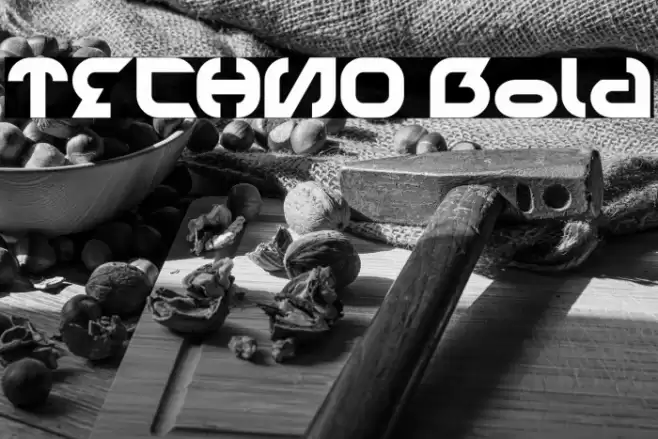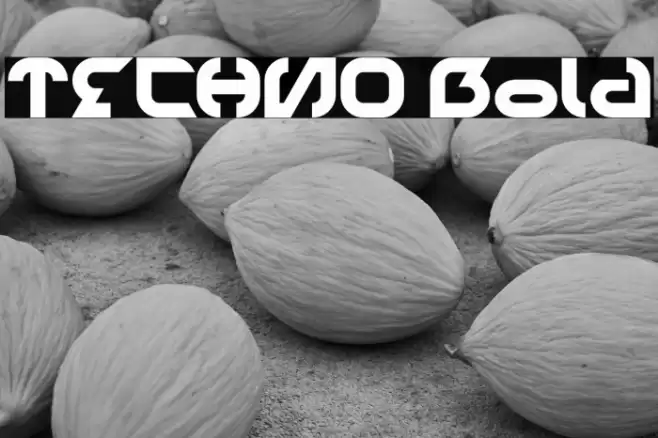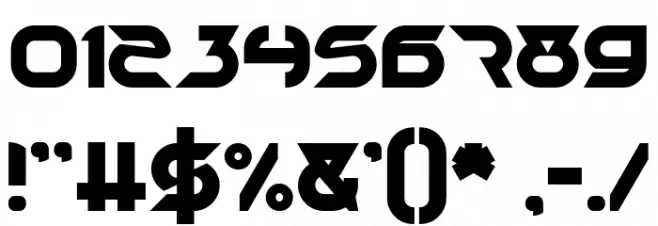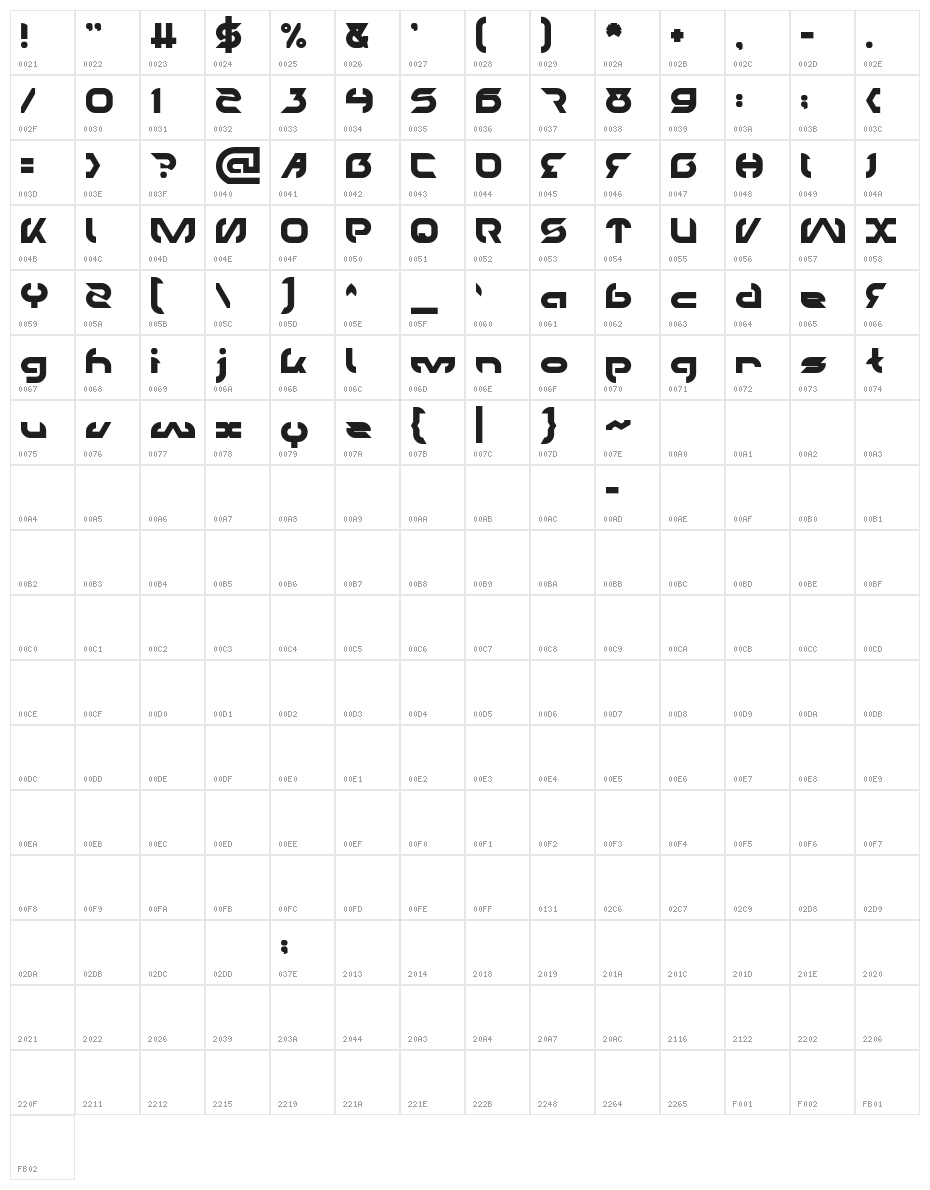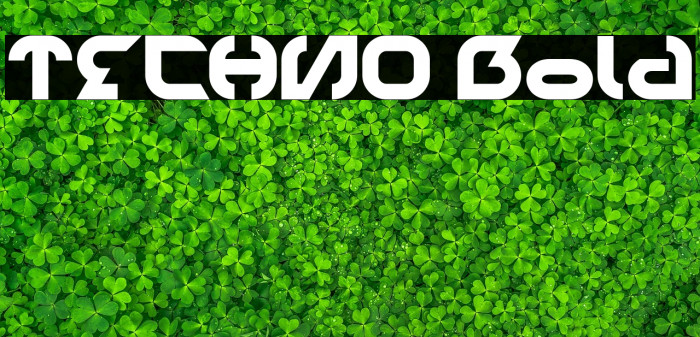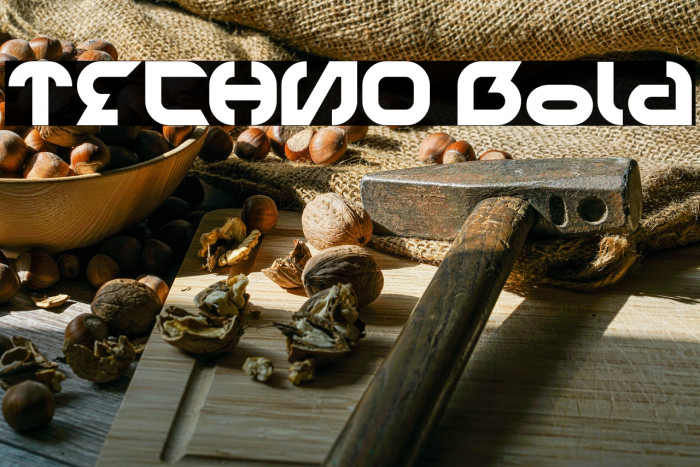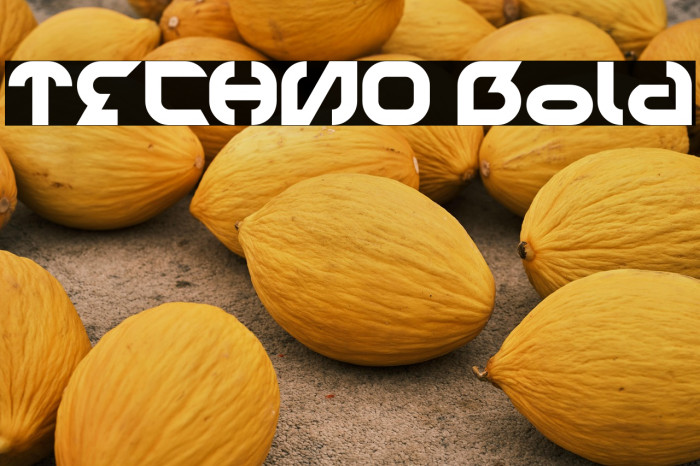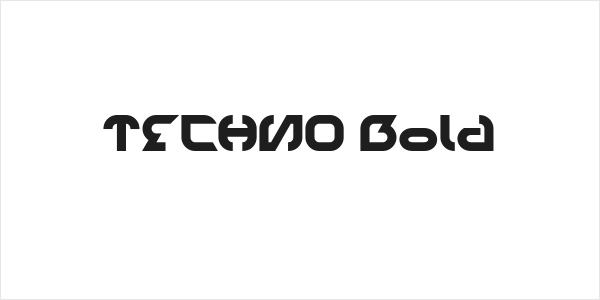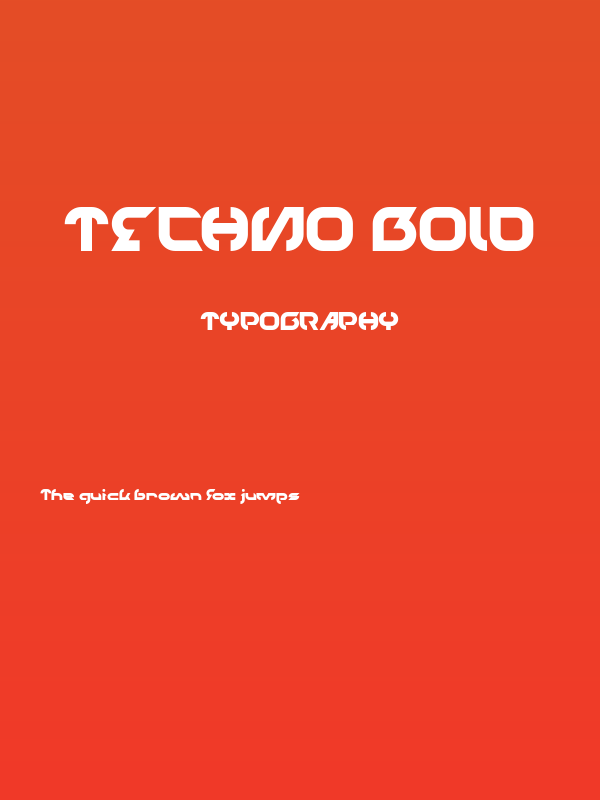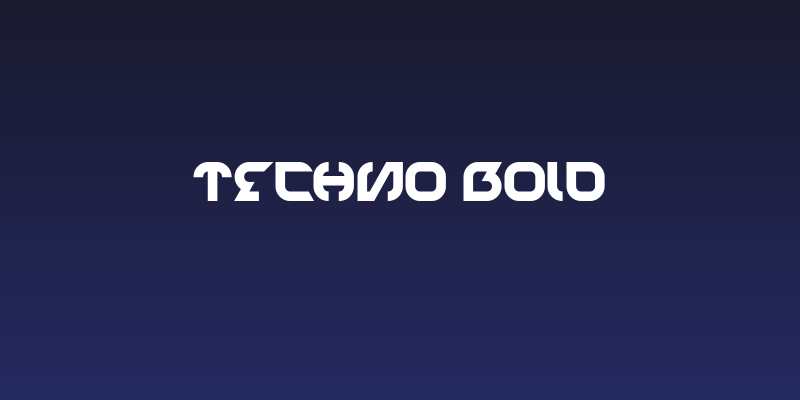
TECHNO Bold Font
TECHNO Bold Description
This font features a bold, futuristic design with sharp angles and geometric shapes. The characters are heavily stylized, giving them a distinct, modern appearance. The uppercase and lowercase letters maintain a consistent style, with unique cuts and edges that create a sense of movement and dynamism. The numbers and special characters follow the same design principles, ensuring uniformity across the font. This typeface is ideal for projects that require a strong, technological feel, such as branding for tech companies, video game titles, or sci-fi themed designs.
A bold, futuristic font with sharp angles and geometric shapes from Uncategorized fonts.
- Proposed Projects: Ideal for tech branding, video game titles, sci-fi themes, and modern posters.